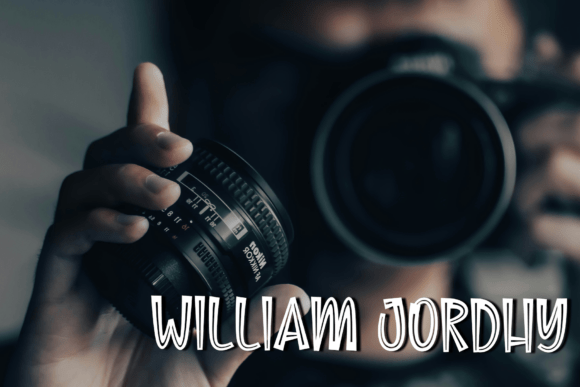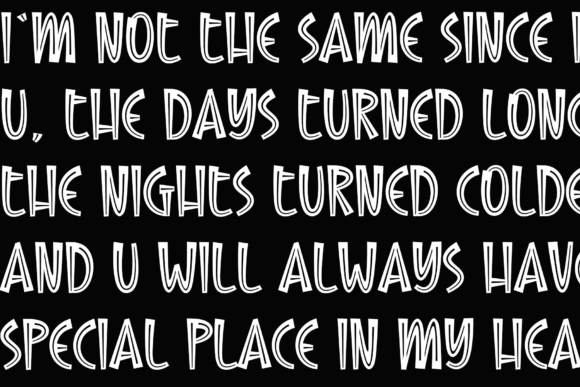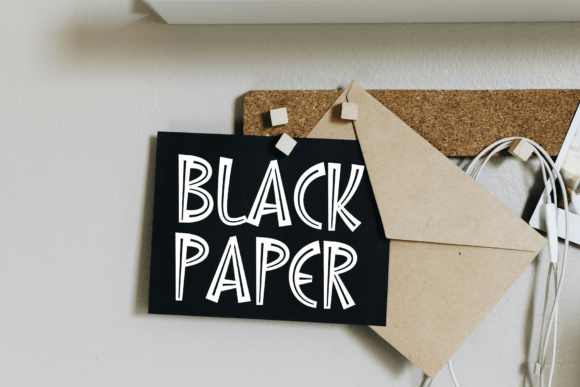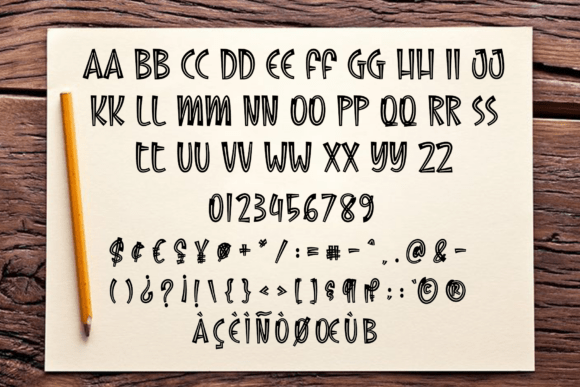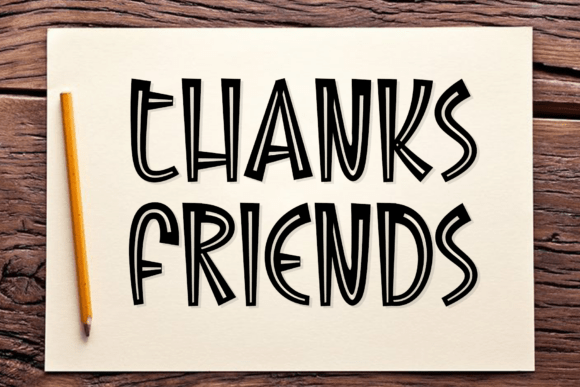
Discover the Perfect Blend of Function and Style: Digital Planner Font
As a creative, you know the thrill of planning a new project or campaign – the blank canvas, the endless possibilities, and the rush of bringing your vision to life. But what happens when your font choices don’t quite live up to your high standards? That’s where Digital Planner Font comes in – a bold and authoritative display font designed to elevate your digital products and planning tools to the next level.
With its unique character shifts and massive, hollow letterforms, Digital Planner Font is a standout choice for designers who crave a sense of customized, architectural craftsmanship. Whether you’re working on a creative planning tool, educational marketing header, or modern stationery design, this font is sure to make a statement. By incorporating Digital Planner Font into your design arsenal, you’ll be able to add a touch of sophistication and professionalism to your work, setting you apart from the competition and helping you achieve your creative goals.
Digital Planner Font Key Features
- Font Family: A unique, modern sans-serif font designed specifically for digital planners and organizers.
- Legibility: Designed with legibility in mind, making it perfect for reading and writing in digital planners.
Digital Planner Font Review
Overall, I think the Digital Planner Font is a solid choice for digital planners and organizers. ✨ The font is clean, easy to read, and works well in a variety of contexts. It’s a great choice for those who want a professional-looking font without the high price tag.
Here are some of the things that work well with this font:
- ✨ Clean and simple design: The font is easy to read and doesn’t have any distracting flourishes or ornamentation.
- ✨ Versatile: The font works well in a variety of contexts, from digital planners to business documents.
- ⚠️ Limited character set: The font doesn’t include a wide range of special characters or symbols, which can be a problem for some users.
- ⚠️ Not ideal for display use: The font is best used in body text or headings, and may not be the best choice for display use (e.g. titles, headings, etc.).
Overall, I think the Digital Planner Font is a great choice for those who need a clean, professional-looking font for digital planning and organization. While it has some limitations, the benefits far outweigh the drawbacks in most cases.
Here are some tips for getting the most out of the Digital Planner Font:
- Use it for digital planners, journals, and worksheets.
- Pair it with bold or italic fonts for added emphasis.
- Experiment with different font sizes and colors to create a visually appealing design.
- Use it for creating printables, such as stickers and labels.
Comparison: Open Sans is more modern and clean compared to Digital Planner Font, which has a more handwritten feel. Open Sans is also more versatile and can be used in a wider range of digital products.
Montserrat is a geometric sans-serif font that’s perfect for digital products, web design, and mobile apps. It’s highly legible and works well in various screen resolutions. Montserrat is a great alternative to Digital Planner Font for designers who want a more urban feel.
Comparison: Montserrat has a more geometric feel compared to Digital Planner Font, which has a more handwritten feel. Montserrat is also more versatile and can be used in a wider range of digital products.